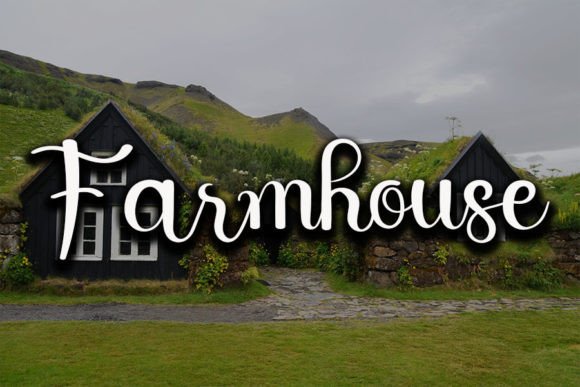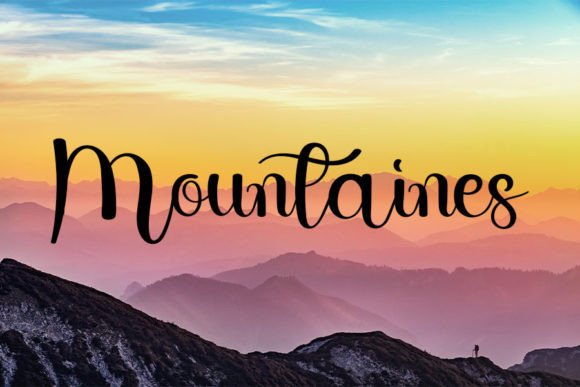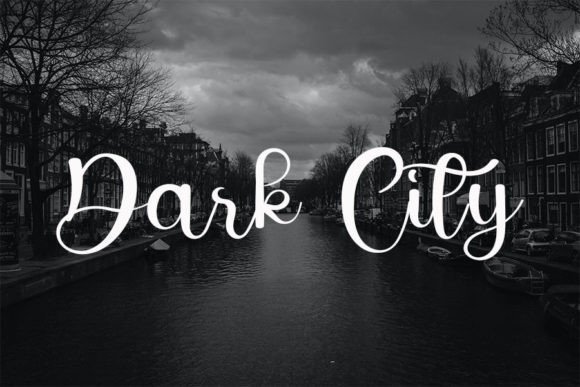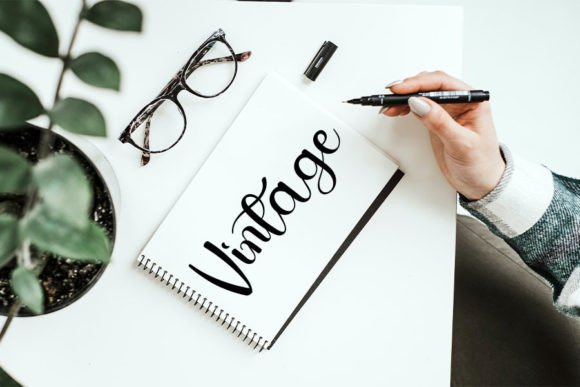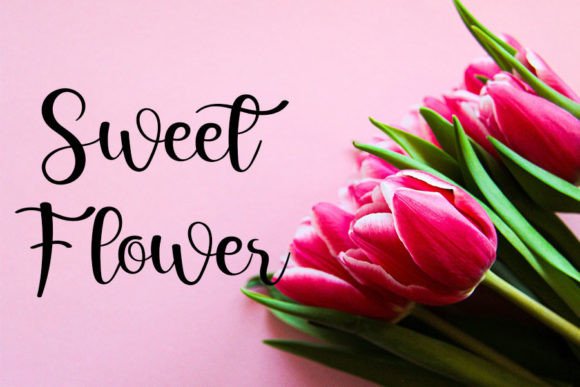
About The Queen Font
“The Queen” is a slim and delicate handwritten font that adds a touch of daintiness and joy to your design projects. This charming font is ideal for creating a romantic and personalized atmosphere, making it a perfect choice for writing wedding invitations, cards, and various other designs that require a romantic and sentimental touch.
The charm of “The Queen” lies in its ability to convey a sense of delicacy and personalization. Each character is thoughtfully crafted to exude a slim and elegant style, making it an excellent choice for projects where you want to create a heartfelt and visually appealing impression. Whether you’re working on digital or print materials, “The Queen” offers a graceful and stylish script that adds a touch of romance to your content.
For wedding stationery, greeting cards, thank you notes, and a wide range of design applications, “The Queen” provides the creative freedom to make your projects stand out. Its slim and delicate handwritten style can enhance the emotional appeal of your designs and effectively convey your heartfelt messages to your audience.
In summary, “The Queen” is a valuable font that brings delicacy and romance to your creative work. Its slim and delicate script style and personalization make it suitable for a variety of sentimental applications, and its ability to convey heartfelt emotions sets it apart. With “The Queen” in your font collection, your design projects will exude a sense of elegance and romance that leaves a lasting impression.